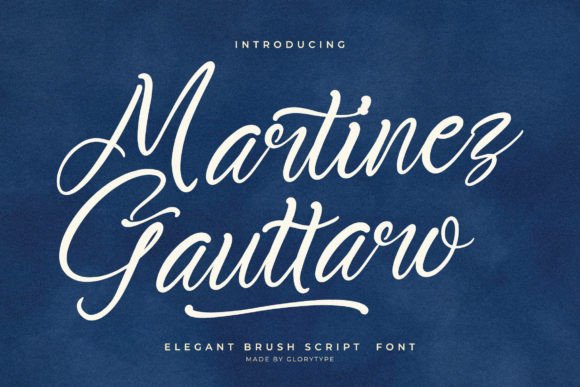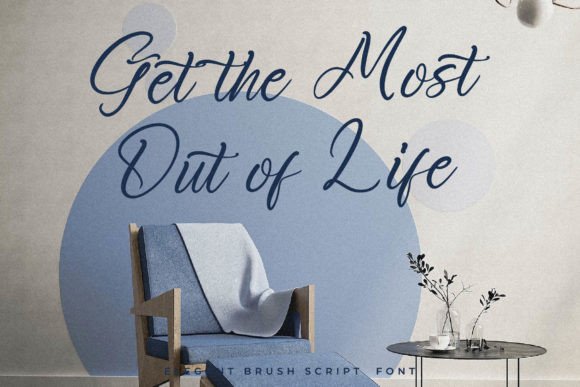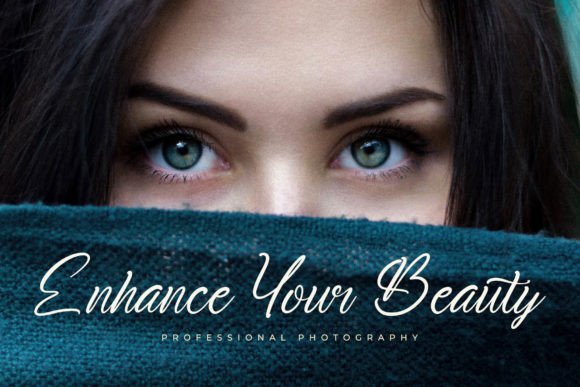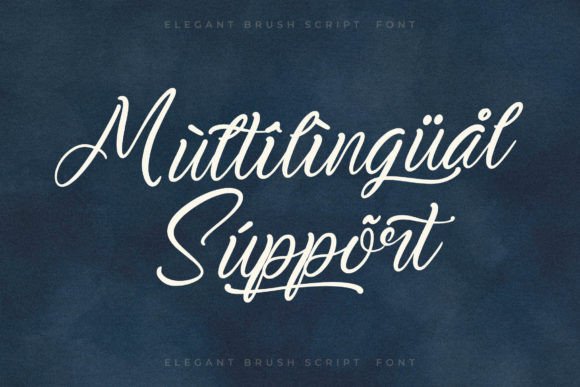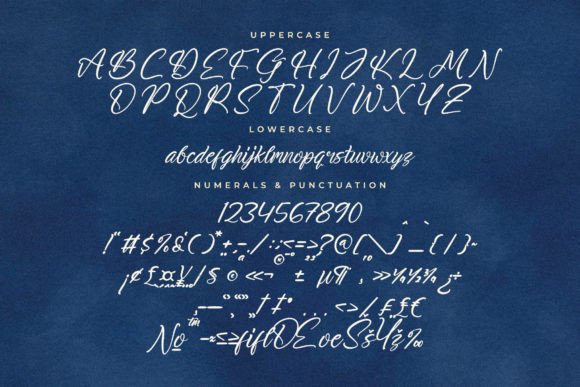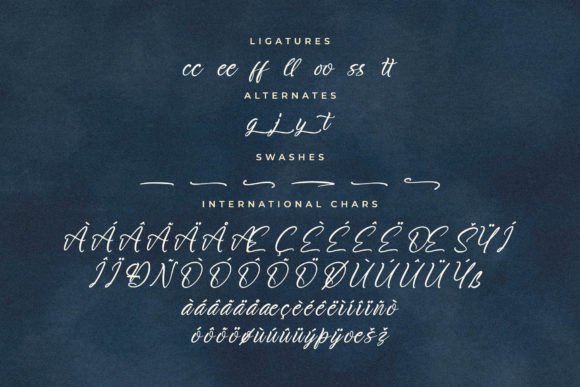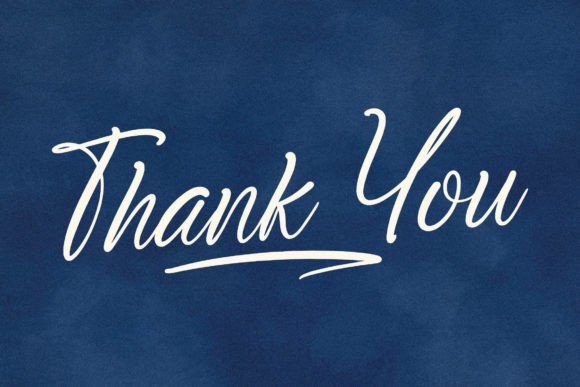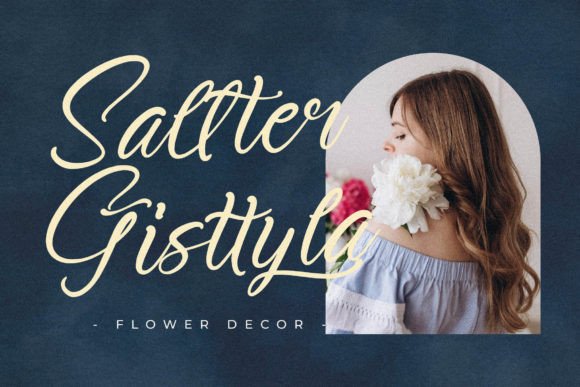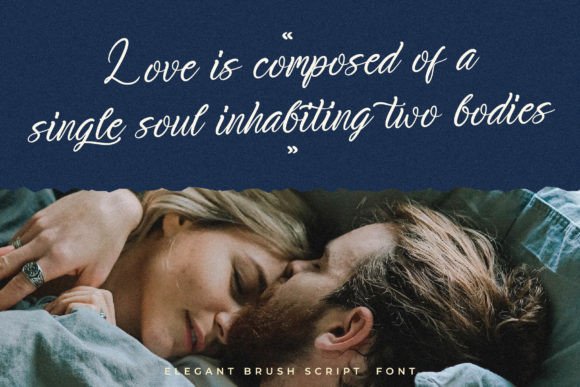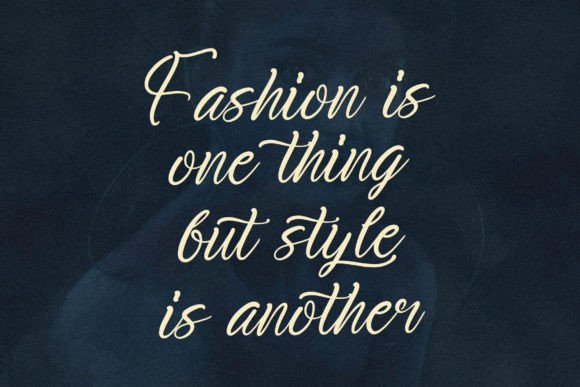
Martinez Gauttaro Font
About Martinez Gauttaro Font
Martinez Gauttaro is a beautifully crafted elegant brush script font that blends sophistication with a natural, hand-lettered feel. Designed to enhance any creative project, it delivers a graceful, flowing aesthetic that looks both modern and timeless. Whether you’re designing for digital or print, the Martinez Gauttaro font download will bring a refined flair to your work.
Stylish and Versatile Script Design
This font features fluid brushstrokes with artistic character and smooth curves that give it a signature handwriting appeal. Martinez Gauttaro’s dynamic style ensures that it stands out in a crowd while remaining highly legible. It’s a perfect blend of casual charm and professional design, making it a go-to option for many creatives.
Ideal for a Wide Range of Uses
Martinez Gauttaro is built to shine across a variety of design projects. Its versatility makes it ideal for:
• Logo Design – Give your brand a signature-style personality
• Product Packaging – Stylish on labels, boxes, jars, and tags
• Event Stationery – Beautiful for wedding invitations, RSVP cards, and menus
• Apparel & Merchandise – Use it on t-shirts, tote bags, mugs, and stickers
• Print Materials – Posters, greeting cards, book covers, and flyers
• Social Media – Eye-catching for Instagram posts and Pinterest pins
• Digital Branding – Excellent for headers, banners, and content graphics
Whether you’re crafting a brand identity or decorating holiday packaging, the Martinez Gauttaro font download ensures your text radiates style.
• Uppercase and lowercase letters
• Numbers and punctuation
• Multilingual support
• Stylish ligatures and alternates
Why Choose Martinez Gauttaro?
The Martinez Gauttaro font was designed with versatility in mind. Its elegant brush style works equally well for formal branding and expressive personal projects. The balanced lettering offers a harmonious blend of modern trends and classic beauty, making it a long-lasting design asset.
If you’re searching for a brush script that delivers elegance, warmth, and professionalism, Martinez Gauttaro font download is the answer. With its stylish character and high adaptability, it’s perfect for bringing a sophisticated, handwritten look to your projects.